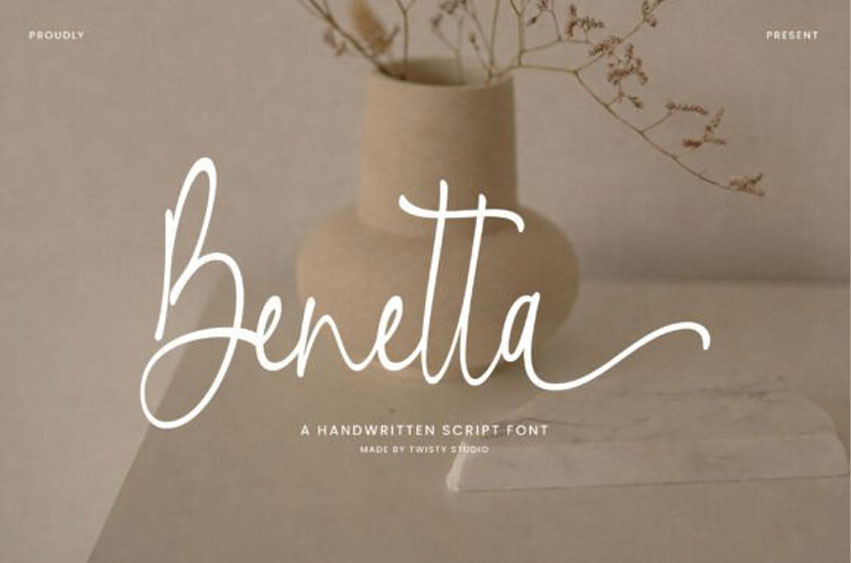
Benetta Font is a beautiful handwritten script typeface designed to bring elegance, warmth, and natural handwritten charm into your designs. Featuring smooth flowing strokes, graceful curves, and expressive handwritten details, Benetta creates a stylish visual appearance that feels both personal and sophisticated.
Its modern script character makes it perfect for creative projects that require softness, romance, and refined typography. Whether for branding, invitations, packaging, or social media content, Benetta delivers a timeless and elegant handwritten experience.